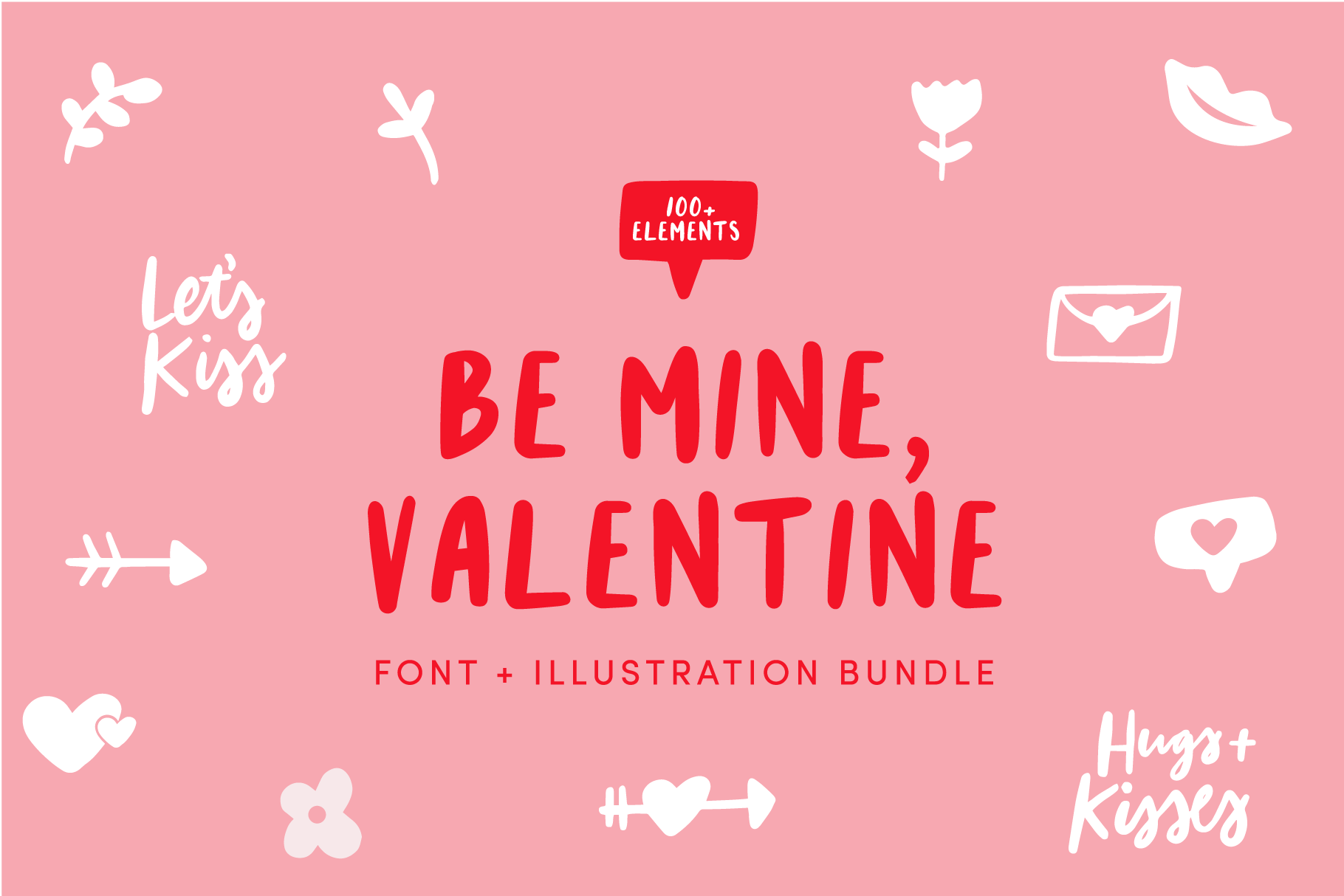
Valentine Font + Illustration Bundle
Be Mine, Valentine font, and illustration bundle. Modern hand-drawn illustrations and font that is perfect for creating fun and creative valentine's items with over 100+ elements.
- Pre-designed quotes and sayings. Please note the quotes cannot be changed since they are vector and not a font. You can change the layout of the words.